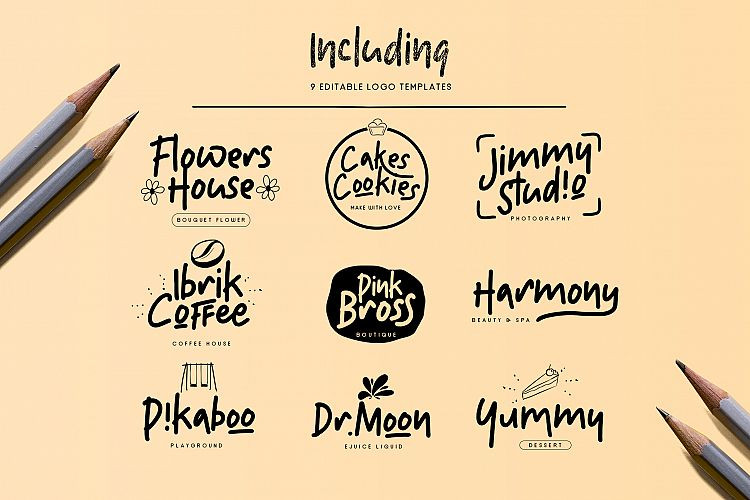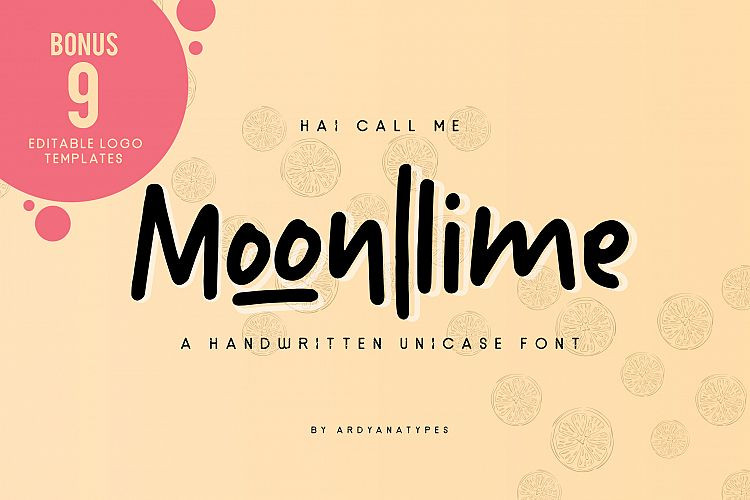
Moonllime Script Font
A seriously adorable block font perfect for your projects, branding, and all things quirky! Introducing Moonllime Font. It is design and shared by Ardyanatypes. Moonllime Script Font is a simple and very casual typeface. comes with very interesting hand strokes, moonllime has 3 variants including moonllime solid, chalk and oulinet, which will give you many choices to use in each of your designs, moonllime also has many opentype features that you will like, this font is very suitable as a logo , quotes, clothing designs, wedding invitations, and more. You can play with ligatures, alternative styles, swash, etc.